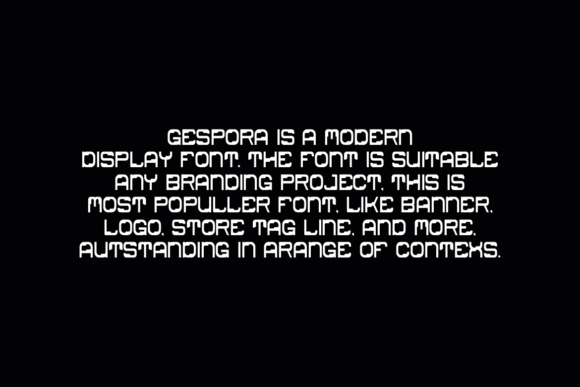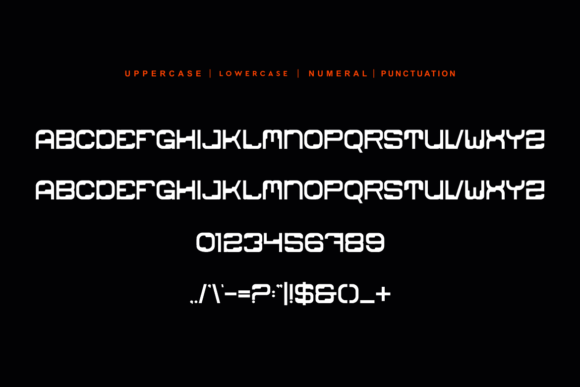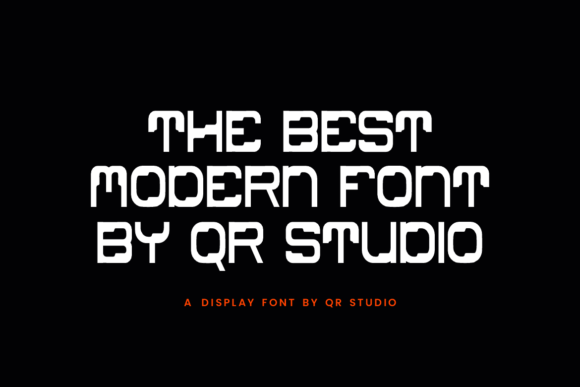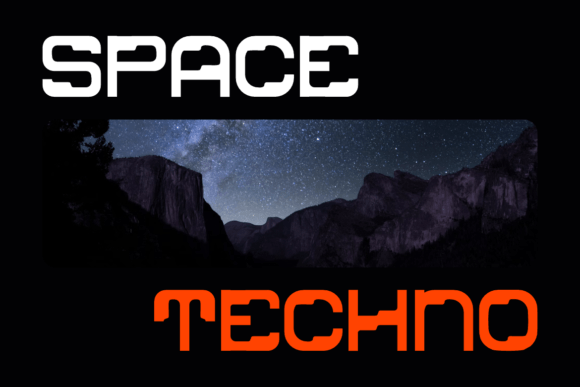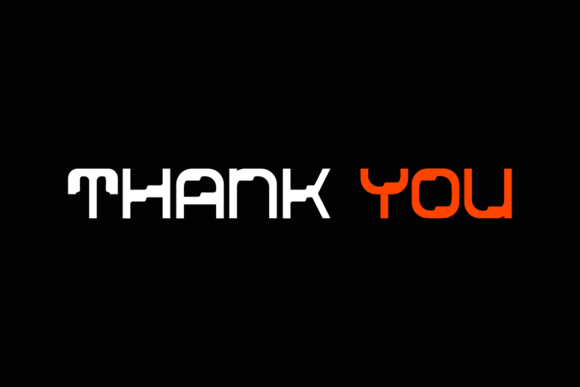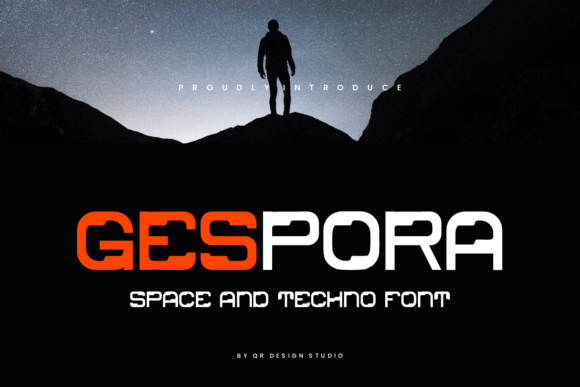
Introducing Gespora Font: The Ultimate Display Font for Bold Branding
In the world of typography, a font can make or break a brand’s identity. A well-crafted font can elevate a brand’s visual appeal, convey its message, and leave a lasting impression on its audience. Gespora Font is one such font that has been making waves in the design community with its bold and authentic display style. In this article, we’ll dive into the features, benefits, and uses of Gespora Font, and explore why it’s a must-have for designers and crafters.
What is Gespora Font?
Gespora Font is a bold and authentic display font designed to make a statement. Its unique style and versatility make it suitable for a wide range of branding projects, from logos and sports-related designs to advertising and marketing materials. The font is available in two formats: .OTF and .TTF, ensuring compatibility with various design software.
Key Features of Gespora Font
- Bold and Authentic Style: Gespora Font boasts a bold and authentic display style that grabs attention and makes a lasting impression.
- Versatility: The font is suitable for various branding projects, including logos, sports designs, and more.
- Wide Range of Contexts: Gespora Font excels in a wide range of contexts, from digital designs to print materials.
Benefits of Using Gespora Font
So, why should designers and crafters choose Gespora Font for their projects? Here are some benefits:
- Unique Identity: Gespora Font helps create a unique identity for brands, setting them apart from competitors.
- Attention-Grabbing: The font’s bold style ensures that the message or brand name grabs attention and stays in the audience’s minds.
- Flexibility: Gespora Font can be used across various platforms, from digital designs to print materials, without losing its charm.
- Easy to Read: Despite its bold style, Gespora Font remains easy to read, making it perfect for headlines, titles, and short texts.
Use Cases for Gespora Font
Gespora Font is an incredibly versatile font that can be used in various design projects, including:
- Logo Design: Create a bold and memorable logo for your brand with Gespora Font.
- Sports Branding: Use Gespora Font to create energetic and dynamic designs for sports-related projects.
- Advertising and Marketing: Make your advertisements and marketing materials stand out with Gespora Font’s attention-grabbing style.
- Digital Designs: Use Gespora Font in digital designs, such as social media graphics, website headers, and more.
Tips for Using Gespora Font Effectively
To get the most out of Gespora Font, here are some tips:
- Pair with Complementary Fonts: Pair Gespora Font with complementary fonts to create a harmonious and visually appealing design.
- Use in Headlines and Titles: Use Gespora Font in headlines and titles to grab attention and emphasize key messages.
- Experiment with Colors: Experiment with different colors to find the perfect match for your brand and design.